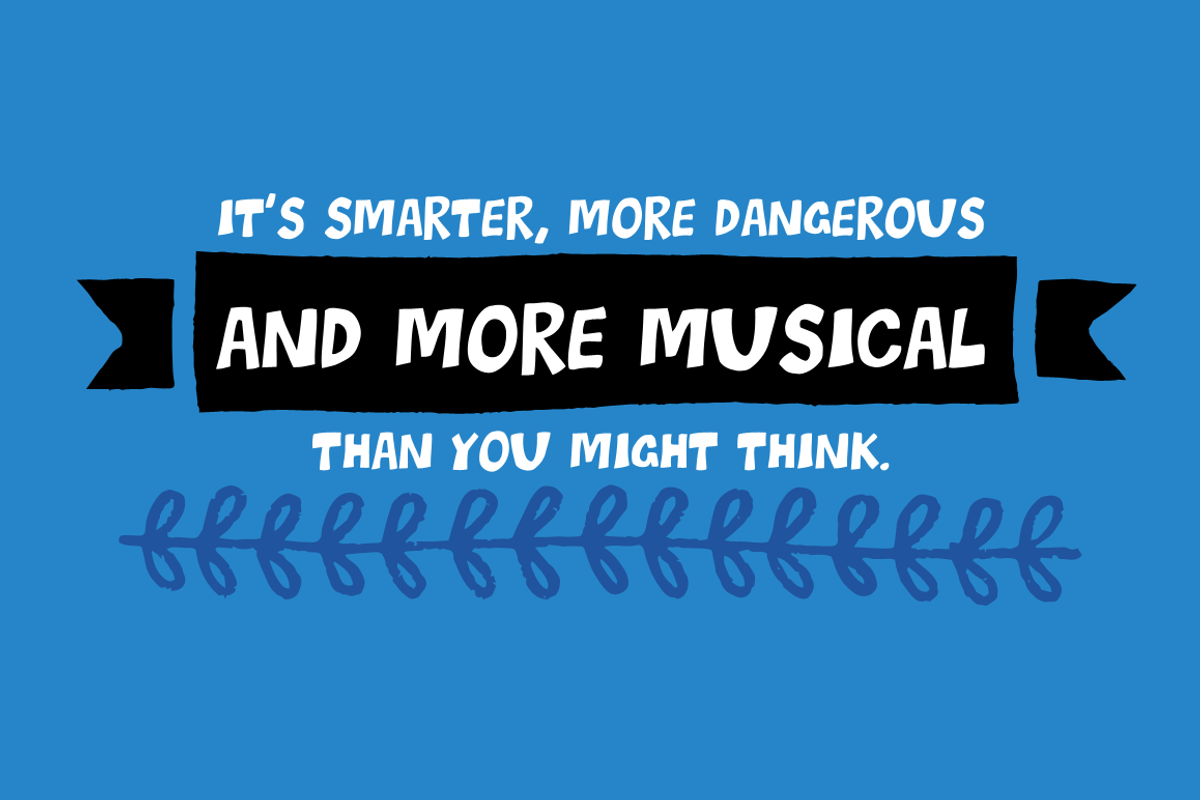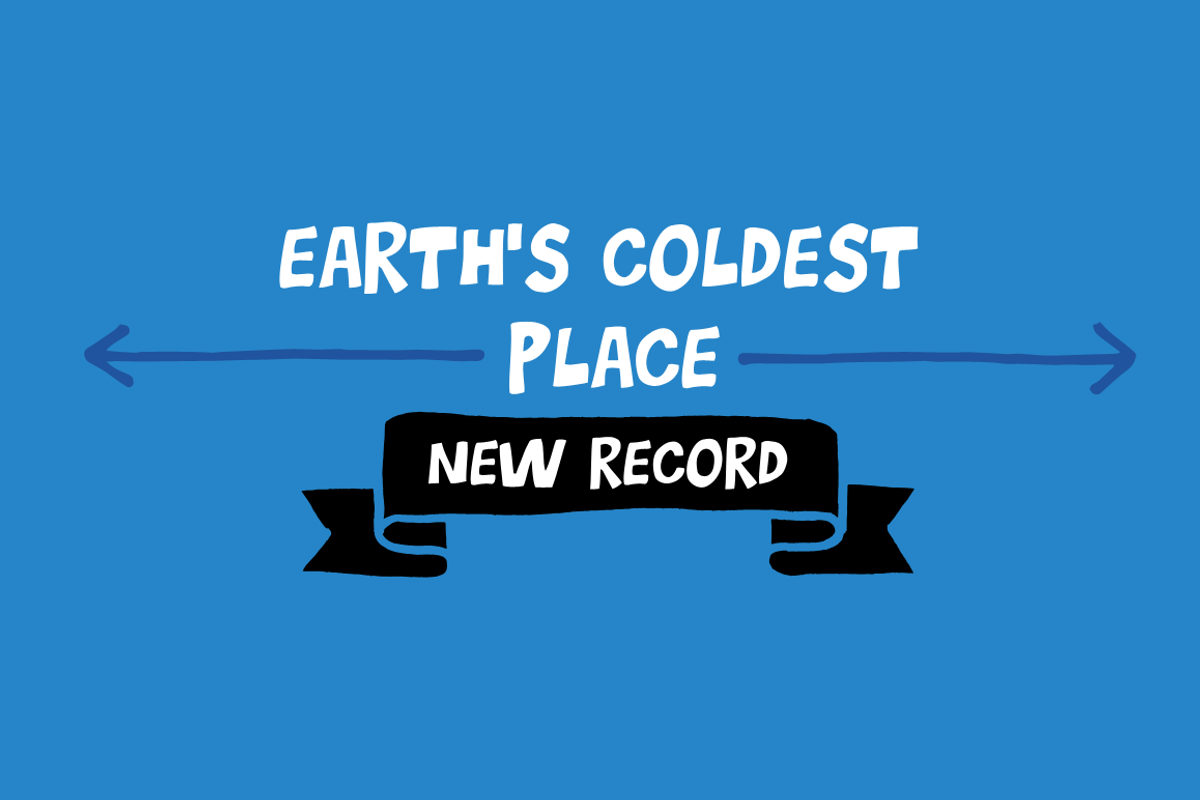
Greenhorn Font
Greenhorn Font by Juraj Chrastina is a font selected for branding, posters, packaging, typography.
Why Greenhorn Font is worth a look
Greenhorn Font by Juraj Chrastina fits naturally into Branding, posters, packaging, typography.